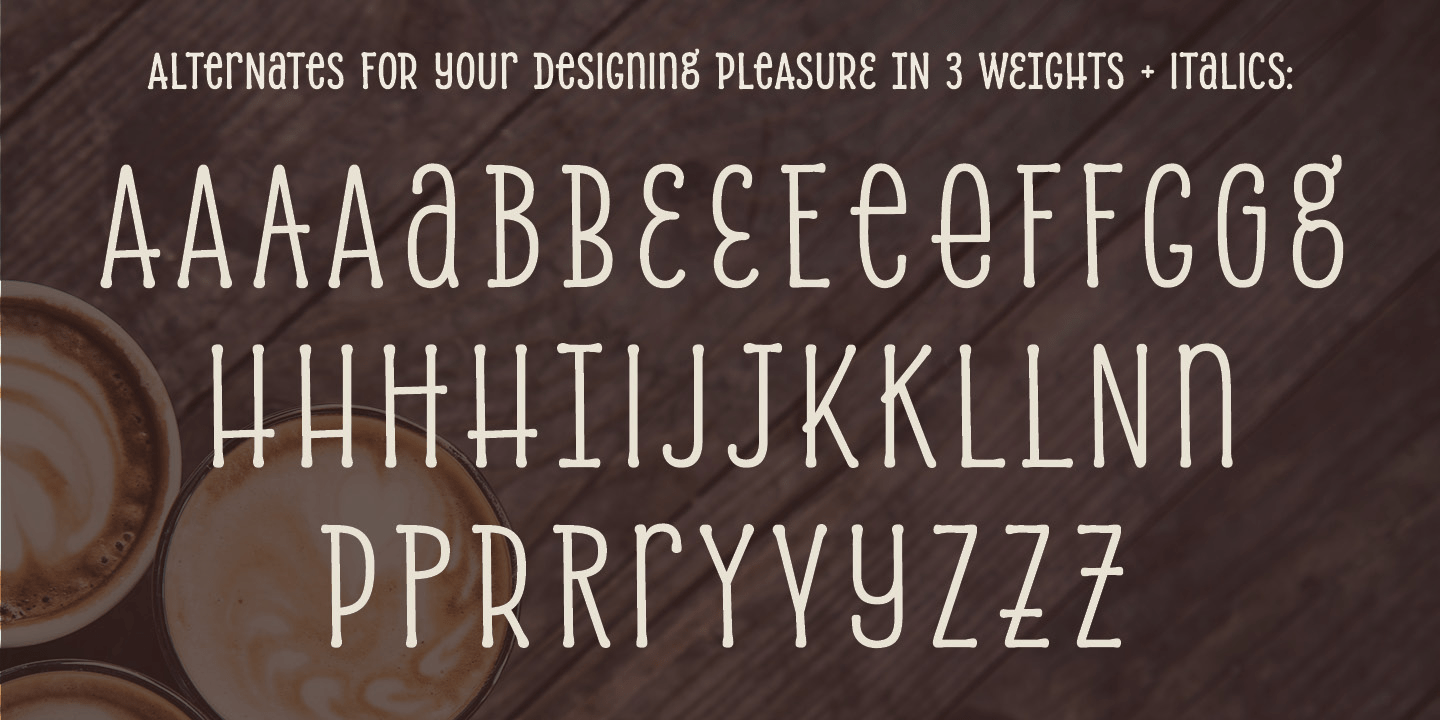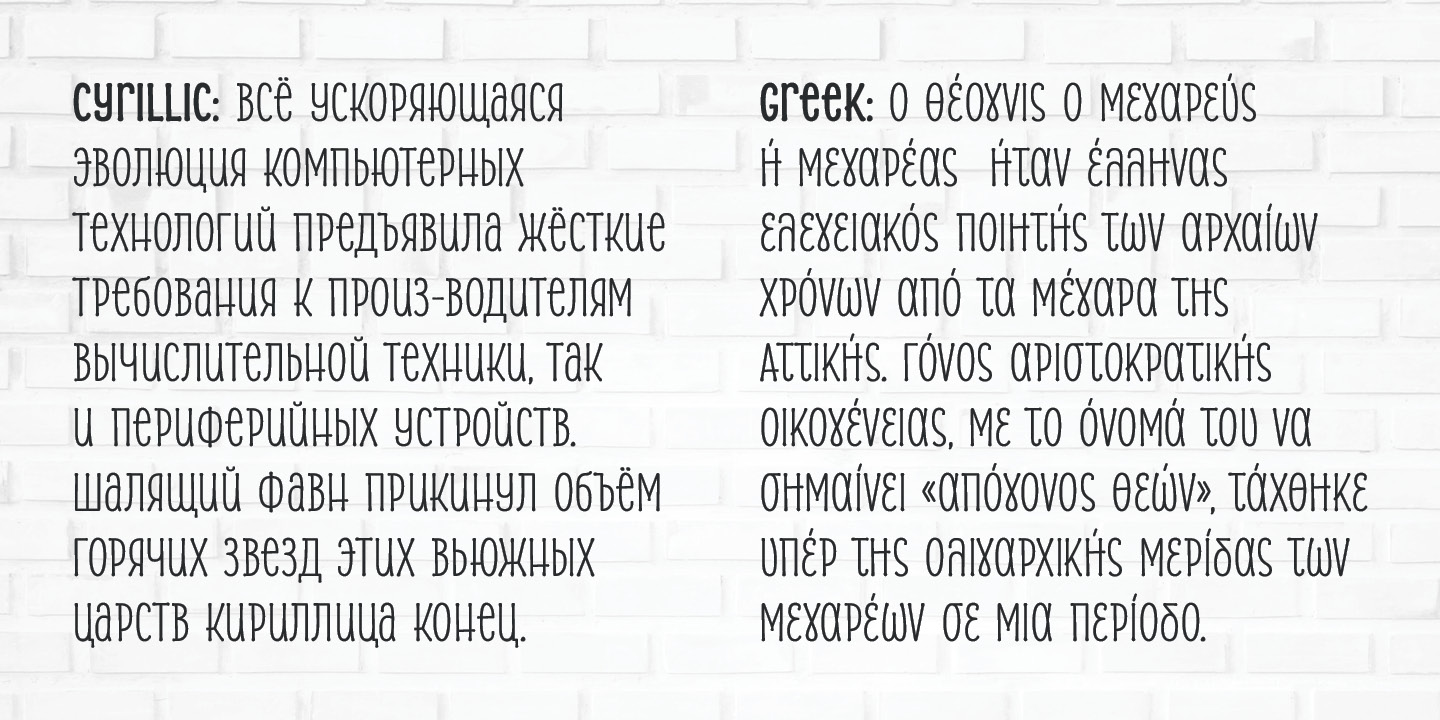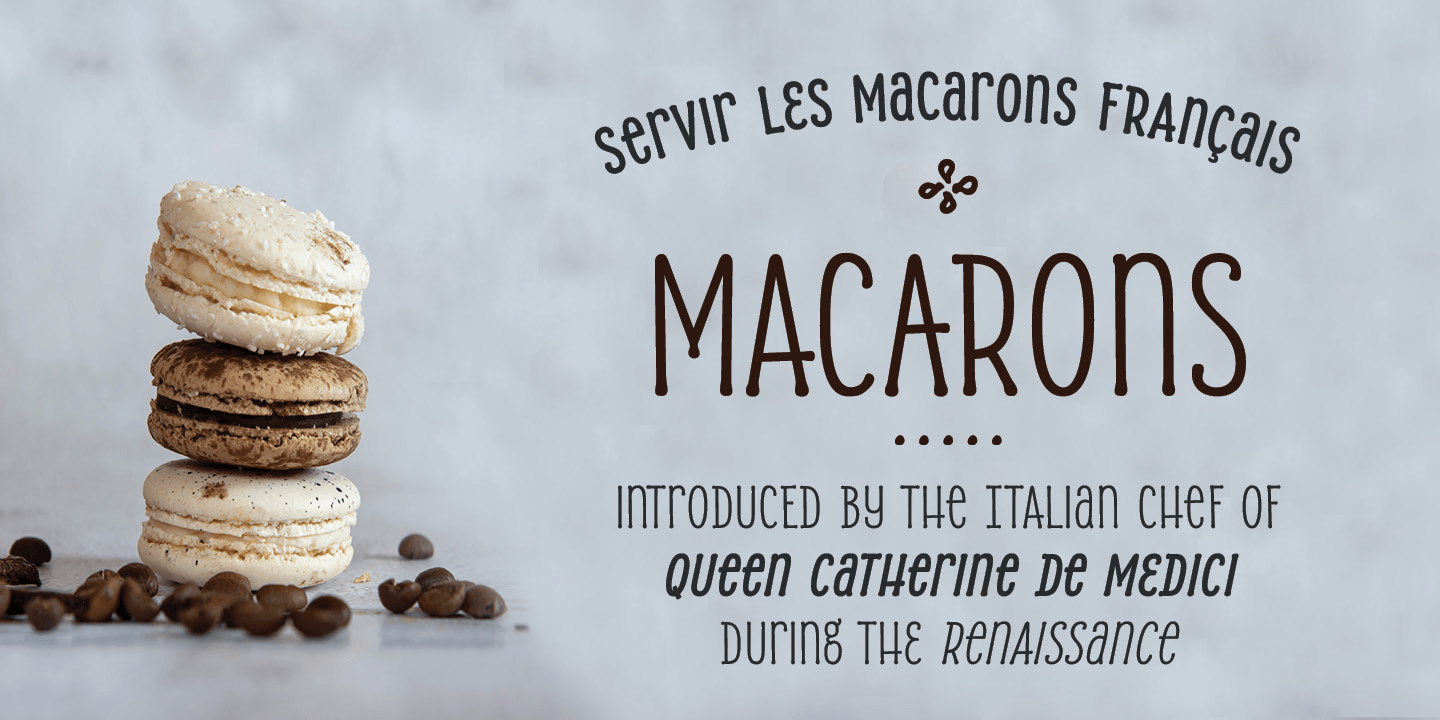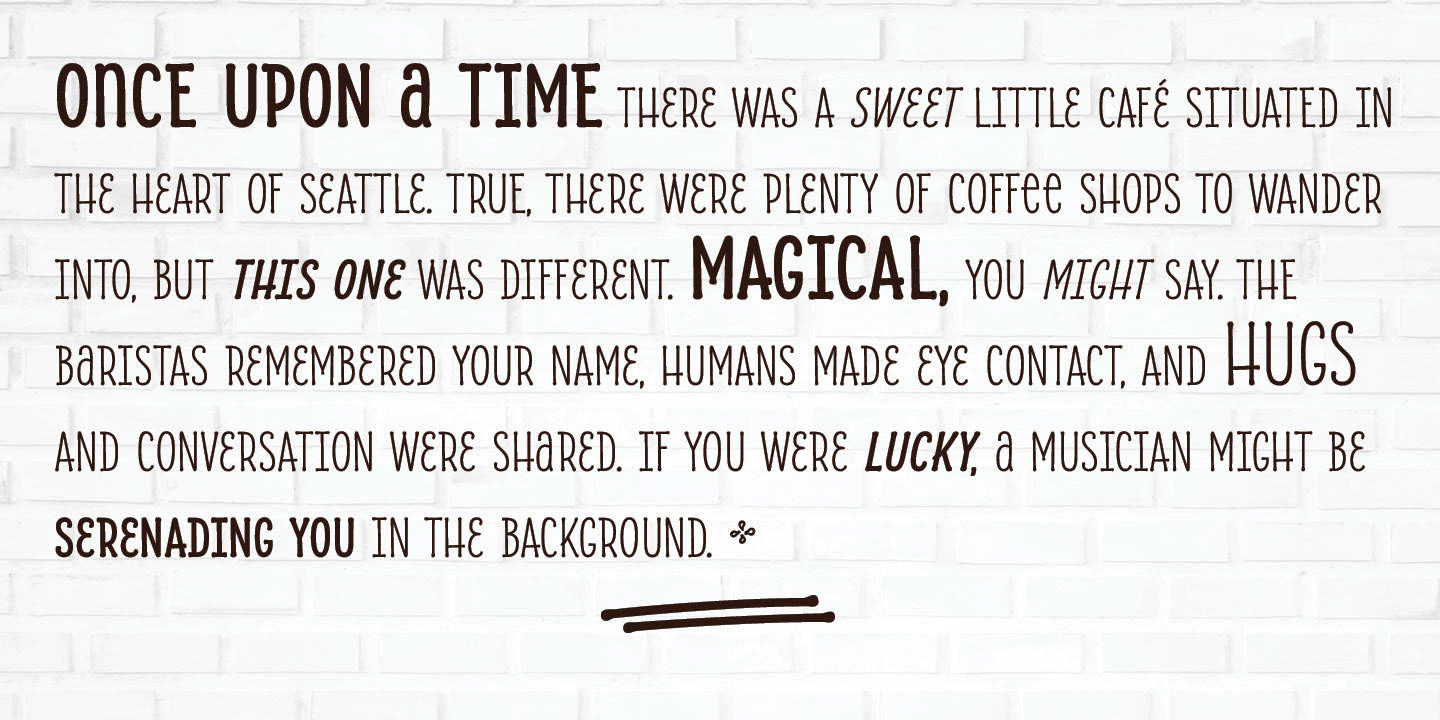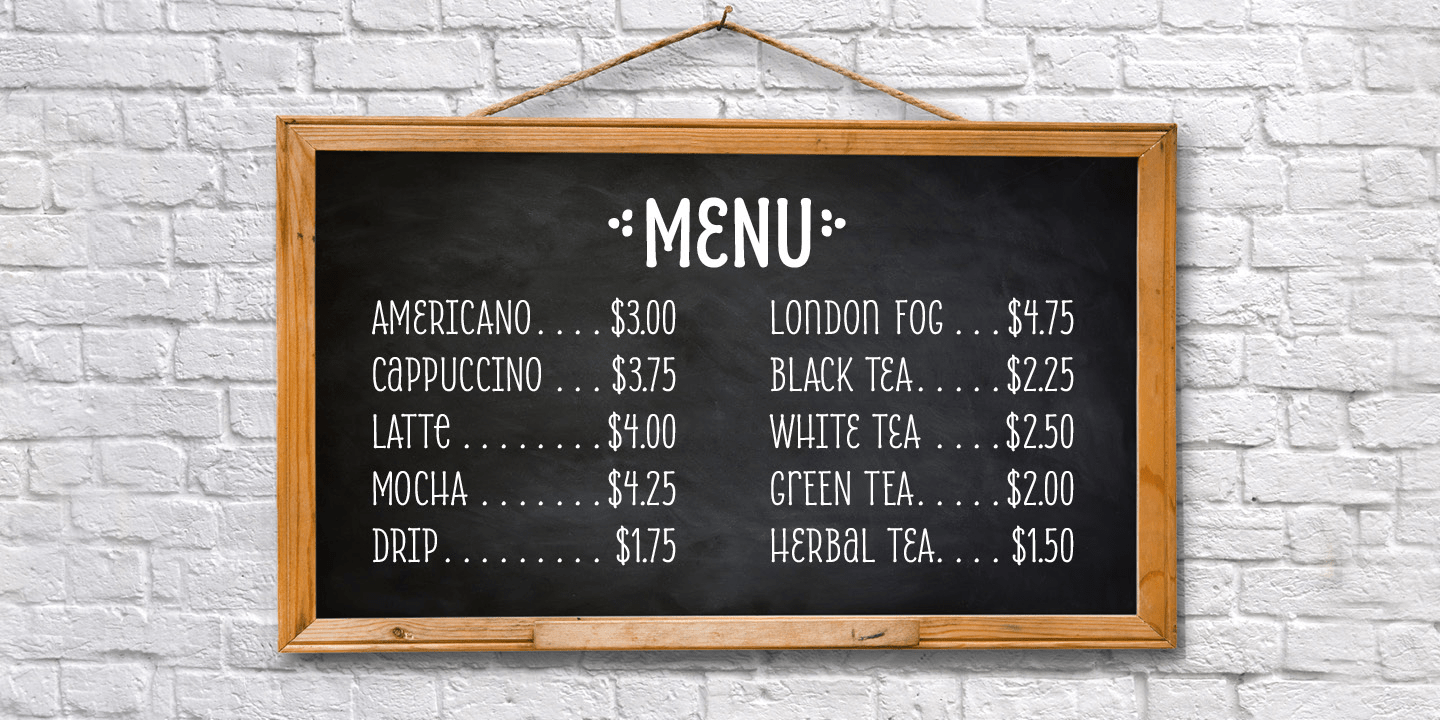
Alasassy Caps Pro
Font Family by Leksen Design
Alasassy is an informal typeface that is designed to liven up logos, headlines, informal signs, advertising, book or report covers, or packaging.  It’s narrow and looks hand-written, as though it had been drawn with a felt-tip pen that left little ink balls on the ends of letters. The lowercase mixes capital and lowercase letter shapes that all have the same height, and there are alternate characters with a mix of high and low crossbars that give the design versatility and a whimsical feeling.